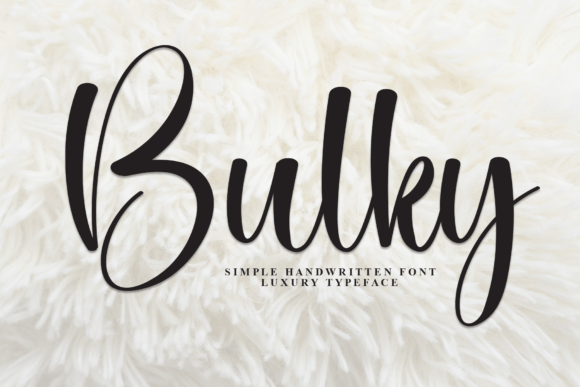
The Perfect Blend of Sophistication and Whimsy: Unveiling the Bulky Font
As a designer, there’s nothing quite like the thrill of finding the perfect font to bring a brand to life. It’s that moment when you see your concept take shape, and the words seem to leap off the page with personality and charm. For me, that moment came when I stumbled upon the Bulky Font – a sophisticated and expressive handwritten typeface that’s as luxurious as it is approachable.
Designed to evoke a sense of confidence and artisanal charm, the Bulky Font is the perfect choice for premium lifestyle branding, upscale interior design logos, and stylish editorial headers. Its bold weight and dramatic, curling terminals make it a standout in any design project, while its fluid movement and elegant loops add a touch of whimsy and personality.
Bulky Font Key Features
- Unique Characteristics: The font features a distinctive, bulky design with thick strokes and rounded edges, making it ideal for use in headlines, titles, and other display typography.
Bulky Font Review
I recently had the chance to work with “Bulky Font” and here’s my honest review.
- Unique character: The font’s bulky design is undeniably eye-catching and can be a great choice for making a statement.
- High legibility: Despite its bold appearance, the font is surprisingly easy to read, making it suitable for body text.
- Playful feel: The font’s irregular shape gives it a playful, almost hand-drawn feel that can be perfect for creative projects.
- Limited customization: The font’s design is quite fixed, making it difficult to adjust the spacing or weight to suit specific design needs.
- Not ideal for small text: Due to its bulky nature, the font can be difficult to read in smaller sizes, which limits its versatility.
Overall, I think “Bulky Font” is a great choice for projects where a bold, eye-catching design is necessary. However, its limitations should be carefully considered before committing to its use.
Bulky Font is ideal for:
- Creating eye-catching headlines and titles.
- Designing posters and flyers.
- Adding a bold touch to presentations and documents.
Tips for Getting the Most Out of Bulky Font
To make the most of Bulky Font, consider:
- Pairing it with a clean and simple background.
- Using it sparingly to avoid overwhelming the design.
- Experimenting with different font sizes and styles to achieve the desired effect.
Alternatives to “Bulky Font” for Designers
Playfair Display is an elegant and luxurious serif font, perfect for creating a sense of sophistication and refinement. It’s ideal for use in titles, headings, and other high-impact text elements where a sense of drama and flair is desired.
Compared to Bulky Font, Playfair Display is more refined and less imposing, making it suitable for a wider range of design applications.
Great Vibes is a modern, cursive script font that’s perfect for adding a touch of personality and whimsy to your designs. It’s ideal for use in titles, headings, and other text elements where a sense of playfulness and creativity is desired.
Compared to Bulky Font, Great Vibes is more fluid and expressive, making it suitable for designs that require a sense of movement and energy.